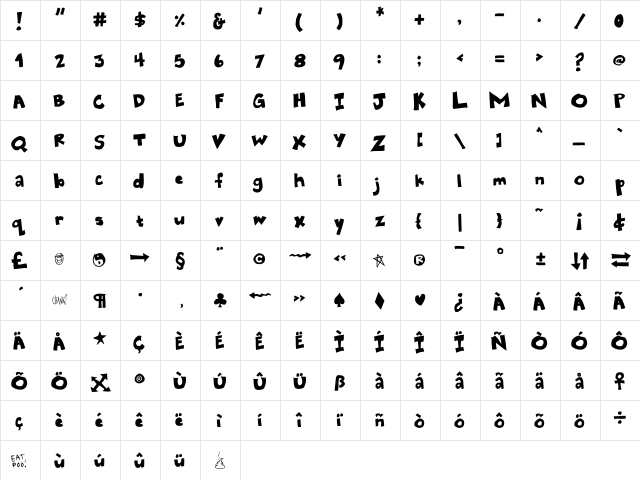
Eatpoo Chubby Font Preview
Eatpoo Chubby
Design Context for Eatpoo Typeface
Eatpoo is a composed and adaptable typeface that performs quietly and consistently across a wide range of design contexts.